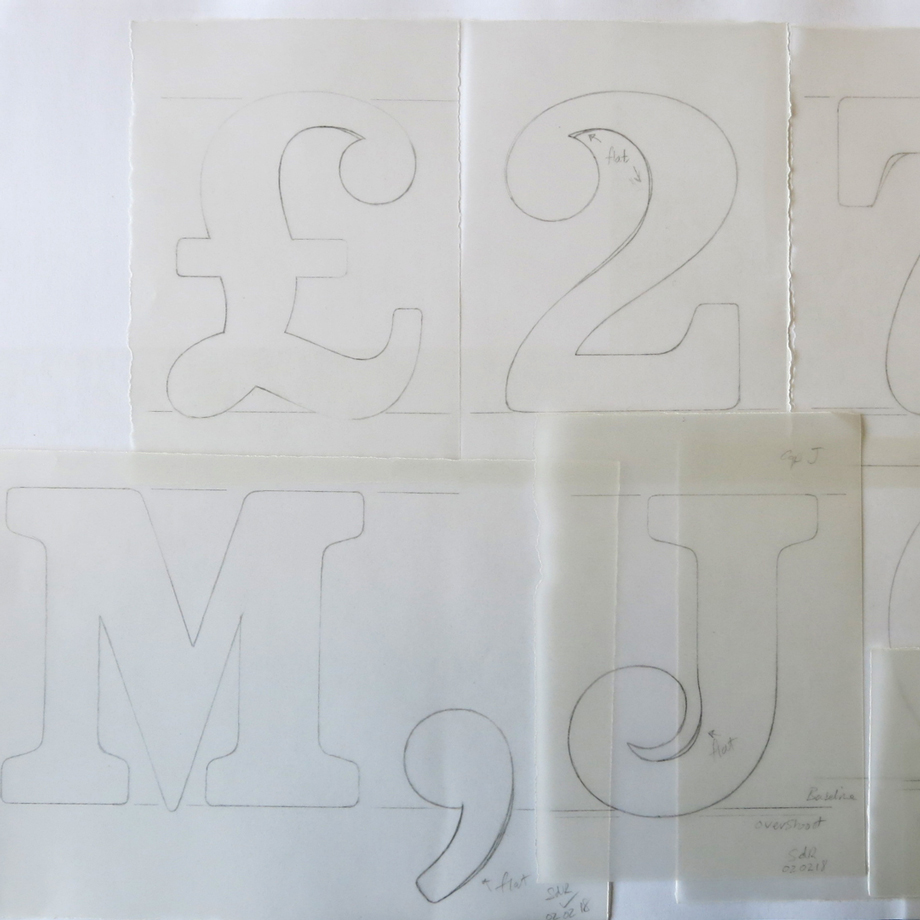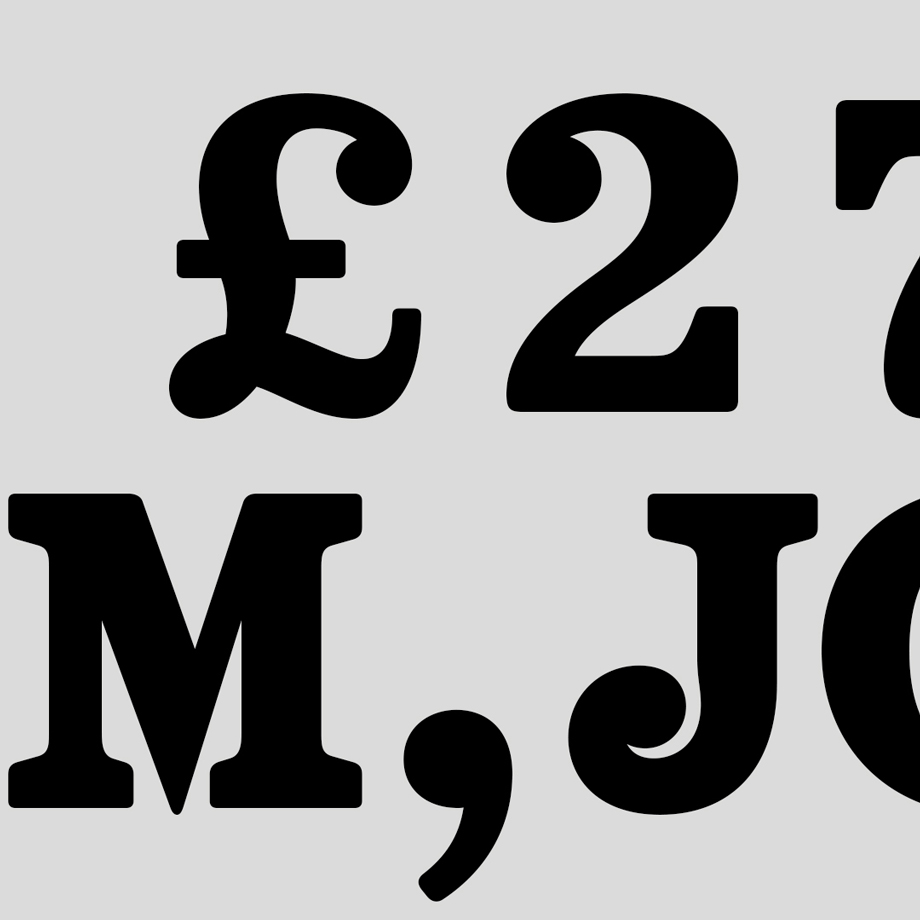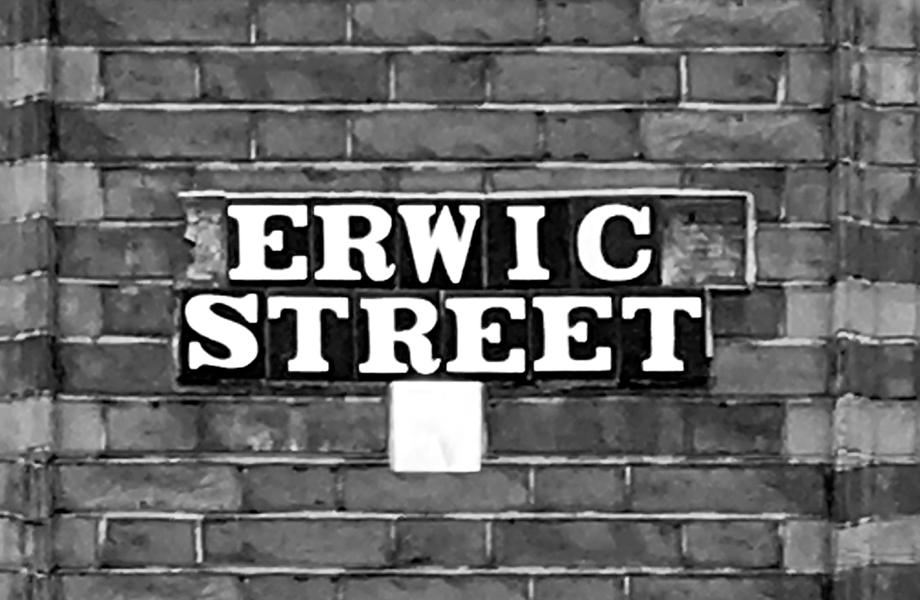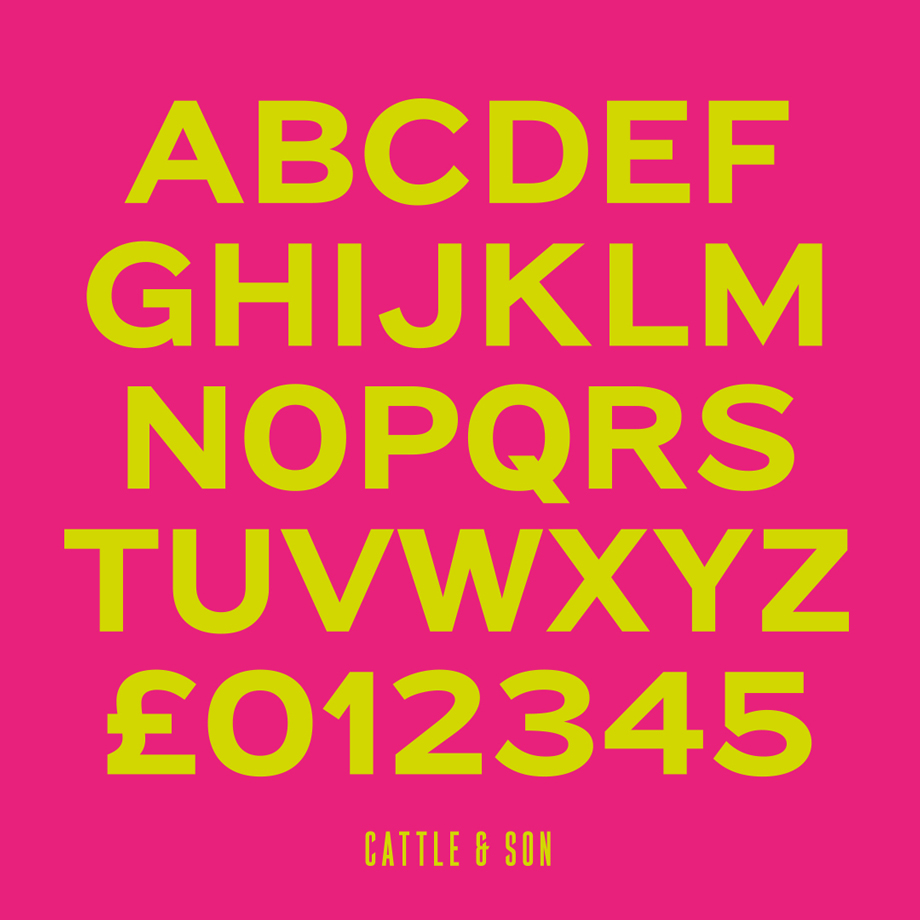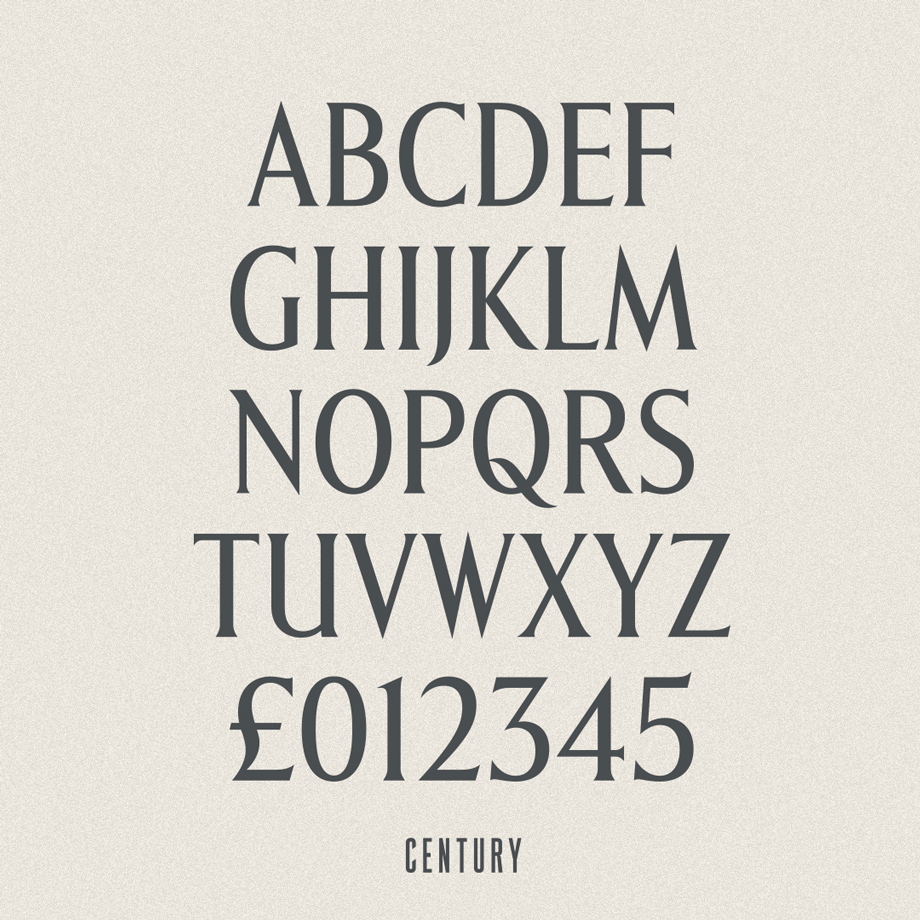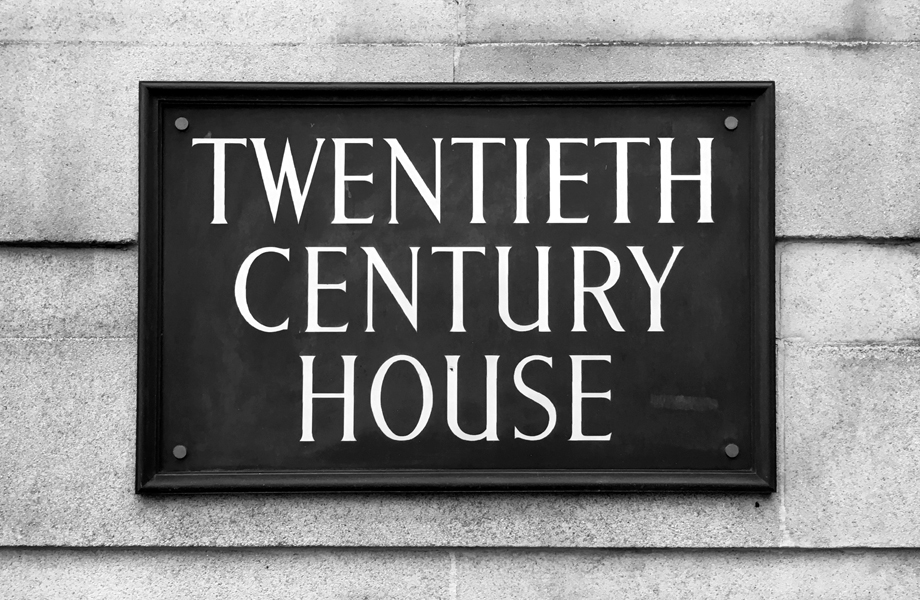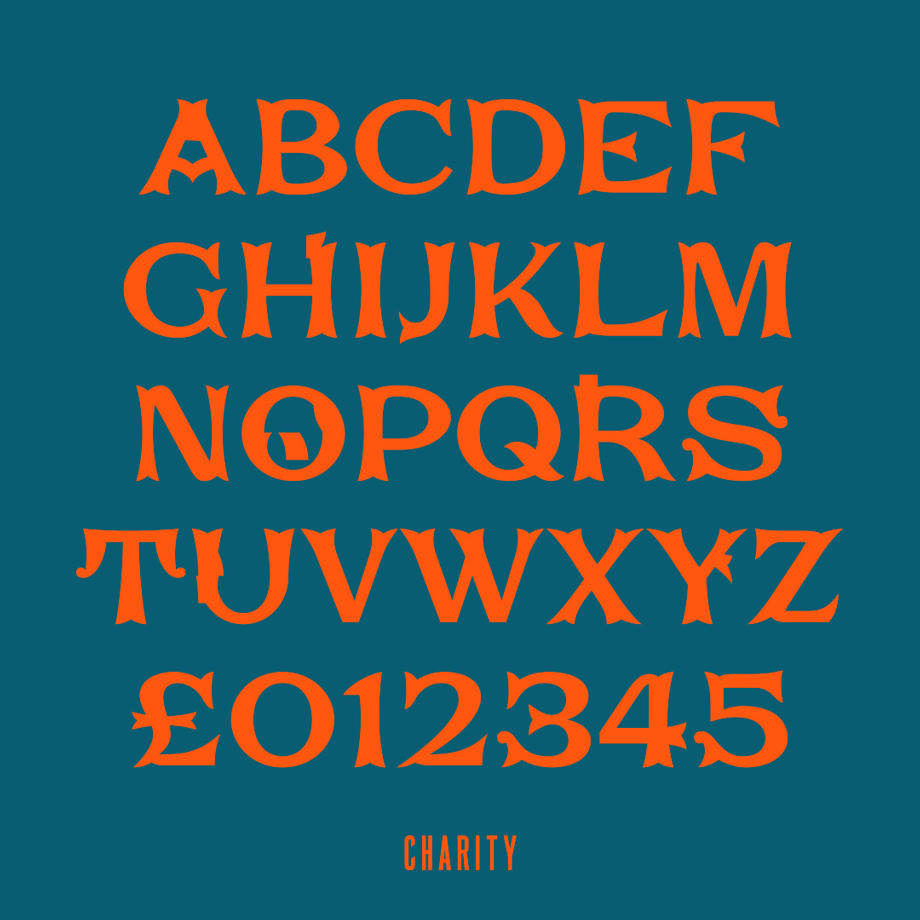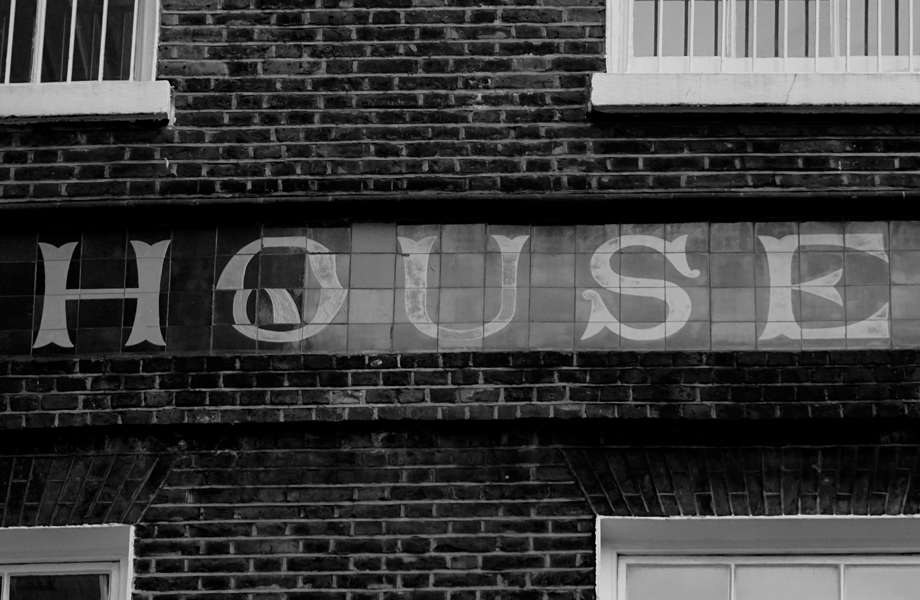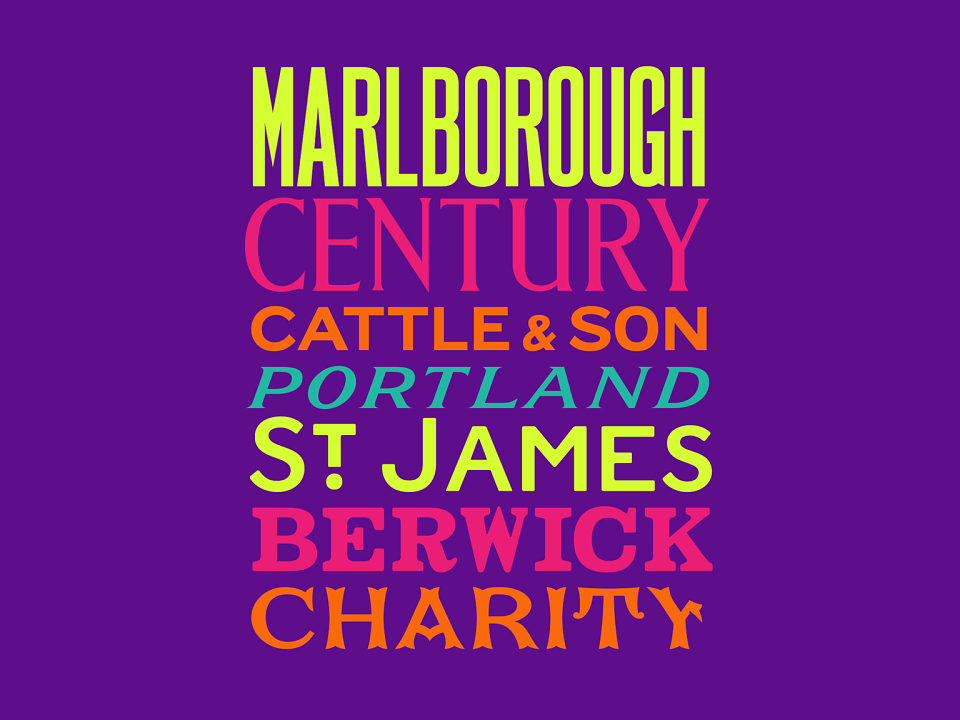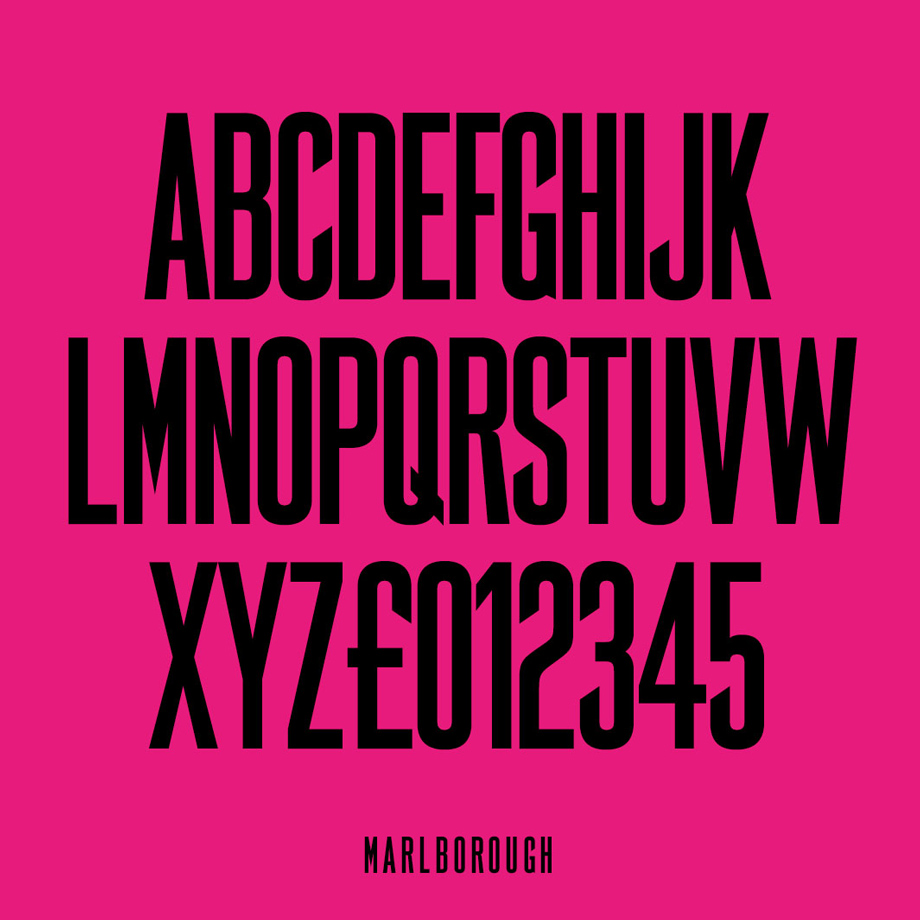
Fontsmith have launched ‘Lost and Foundry’ on behalf of private members club and charity House of St Barnabas. Developed by Fontsmith, M&C Saatchi London and Line Form Color, the campaign sees the crumbling typefaces of Soho recovered to be sold online as a collection of display fonts, to fund the House's vital work with London’s homeless.
The House of St Barnabas is a social enterprise that aims to break the cycle of homelessness through its Employment Academy, a programme that works with people who have been affected by homelessness and supports them into lasting work. It does this by operating as a member’s club, with all profits from the club going to the Employment Academy.
For this campaign we worked with M&C Saatchi London to develop seven fonts from crumbling signs around Soho, with each named according to the specific content or location relevant to them, such as Berwick, Cattle & Son and Marlborough.
The fonts were hand drawn and turned into fully functioning fonts by Fontsmith designers Stuart de Rozario and Pedro Arilla. This involved adapting and extending the missing characters to make useful and crafted designs out of them, with it taking 3 months to digitise and design a workable series of fonts. The fonts are available to purchase from our site, with all proceeds to be donated to The House of St Barnabas. Each purchase comes with a one month free membership to the House.
FS Berwick
Thanks to its humble tiled origins, this Egyptian serif type maintains a uniform character width, creating the irregular letter proportions found in the final alphabet. Broad‐shouldered, the bracketed serifs firmly ground the face, whilst its extreme hairlines become a necessity due to the uniform width. Of note is the upside down ‘S’, to be found on the original sign on Berwick Street, a lovely retention. Perhaps due to its ceramic origins, there is a surprising ‘slippiness’ to its final appearance.
FS Cattle
Cattle & Son is best described as a wide, but not overly extended, Grotesque‐style Sans Serif, showing a uniform width and carrying a robust strength to its form. Whilst lightly functional overall, the purposeful diagonal legs of the ‘K’, ‘R’, and the tail of the ‘Q’ add an urgency to its appearance. The reduced size of the ampersand gives away Cattle & Son’s hand‐painted origins, AND the oblique compacted ‘LTD’ found on the original sign is also included in the final set. This beautiful sign is tucked away under an arch in Portland Mews, sheltering from the weather. Perhaps this is why it has lasted so long.
FS Portland
The sister type to Cattle & Son, Portland is oblique rather than italic. The serifs are not overly long, yet still enhance its rather rigid cap height and baseline appearance. Its ‘A’ has a top serif, the ‘M’ square and the ‘G’ foregoes any spur. Particularly delightful is the open ampersand. Numerals align to encourage the horizontal flavour of the oblique style. Overall, Portland is both confident and graceful.
FS Century
This somewhat elongated set of Roman capitals was originally rendered in paint circa 1940, but its roots trace back to the Trajan Column in Rome. Witness the slightly unbalanced ‘W’ and the painter’s hand is revealed. Century’s flared serif style is extremely short, sharp and bracketed. The ‘M’ is splayed and has no top serifs. Century has a uniform appearance of width, probably due to its sign‐written origins. Yet is elegant, classic and accentuates sophistication.
FS Charity
A true Tuscan letterform, the original is located on The House of St. Barnabas in ceramic tile and was revealed in all its broken glory in 2014. FS Charity retains these incorrect characters in its lowercase form allowing a lively, decorative texture to any typesetting. In the uppercase the errors from the original tiles have been fixed. FS Charity features fishtailed terminals on its strokes, a curious branched ‘T’, while the ‘S’ displays tear‐drop ends to its serifs. Almost uniform in width, the ‘A’, ‘M’ and ‘W’ are the widest characters in this set.
FS Marlborough
The elongated Marlborough features diagonal terminals to some characters and numerals. Also retained is the space‐saving contracted ‘T’ glyph from the original sign, while the ‘R’ features a distinctive wedge‐shaped leg. Highly individual in this form, similar signage appears around Soho, but featuring a variety of widths in their design.
FS St James
A lineal Continental style, St James also displays a true sense of ‘Londoness’ in its titling form, perhaps influenced by early Underground signage. Irregular letterforms display a continental flavour, particularly evident in its Deco style ‘W’, ampersand and numerals. The rather high cross bar in the ‘A’ is also reflected in the raised middle strokes of the ‘M’. Noteworthy are the distinctive unions found on all of the characters. The original lettering is still located on Greek St.
The fonts have inspired seven original artworks from seven UK-based artists and designers famed for their use of typography. The works will be available to buy from the House of St Barnabas at the font launch event, on Tuesday 10th July. Each artist has used a different font from the collection. The artists contributing are Morag Myerscough, Anthony Burrill, Steven Wilson, Dangerous Minds, Smile, Supermundane and I love dust. Funds raised from the sale of artwork are being donated to the House.
Simon Warden, Founder, Line Form Color, said: ‘It’s always been my thing, relating typography to its environment. So by preserving Soho’s rich visual history, we could also do good by helping such a fantastic local cause, The House of St Barnabas. The project has now gained such momentum, we hope it will help make a real difference.’
Fontsmith and M&C Saatchi recover Soho fonts in ‘Lost and Foundry’ campaign